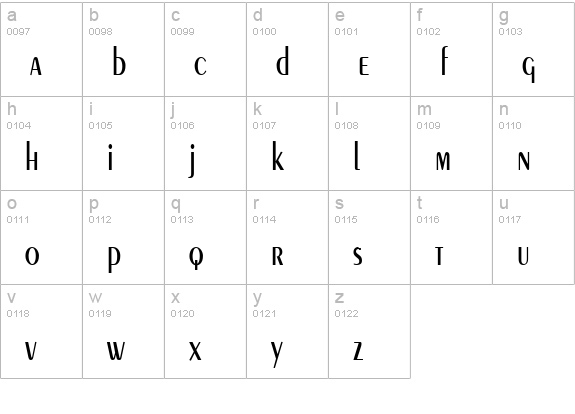
Pare Condensed Normal Font Details
Pare Condensed Normal is the standard, neutral, condensed-width variant in the Pare typeface family \xE2\x80\x94 well suited to general body text, paragraphs, and standard typographic work.
Pare Condensed Normal font is a sleek and modern typeface that exudes elegance and sophistication. Its condensed design allows for efficient use of space, making it perfect for headlines, titles, and other attention-grabbing elements. With its clean lines and balanced proportions, Pare Condensed Normal font adds a touch of professionalism to any project, whether it's a website, logo, or print material. The versatility of this font is truly remarkable, as it seamlessly adapts to various design styles and themes. What sets Pare Condensed Normal font apart is not only its stunning appearance but also its availability as a free download at FontsMarket.com. That's right, this highly sought-after font can be yours without any cost. FontsMarket.com is a trusted source for high-quality fonts, and their commitment to providing free access to Pare Condensed Normal font ensures that designers, students, and enthusiasts alike can enjoy its beauty without breaking the bank. Whether you're a seasoned graphic designer or just starting out, Pare Condensed Normal font is a valuable addition to your font library. Its versatility, elegance, and the fact that it's freely available to download make it a must-have for any creative project. So why wait? Visit FontsMarket.com today and discover the magic of Pare Condensed Normal font.